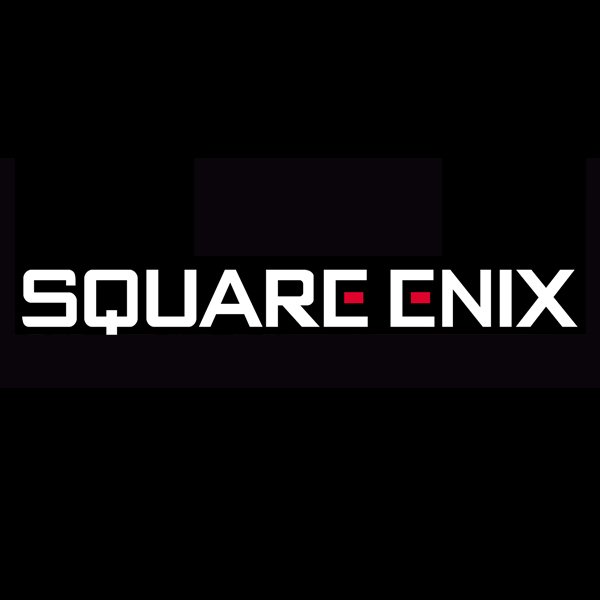
Square Enix Font
Company & ConsolesSquare Enix is a Japanese video game developer and publisher, known for creating popular franchises such as Final Fantasy, Kingdom Hearts, and Dragon Quest.
The logo of Square Enix uses a font that closely resembles Bank Gothic Light, but with slight modifications to the "S," "Q," and "E" characters. The original font was created by Morris Fuller Benton for the ATF in 1930 and can be purchased here.